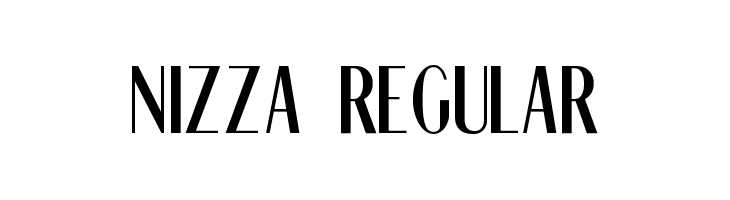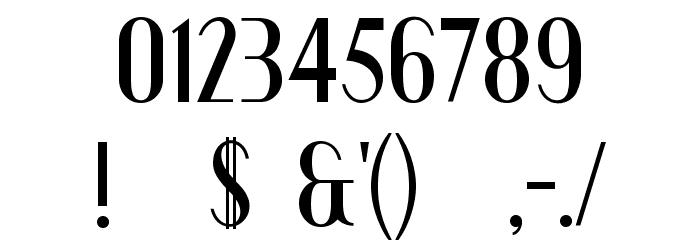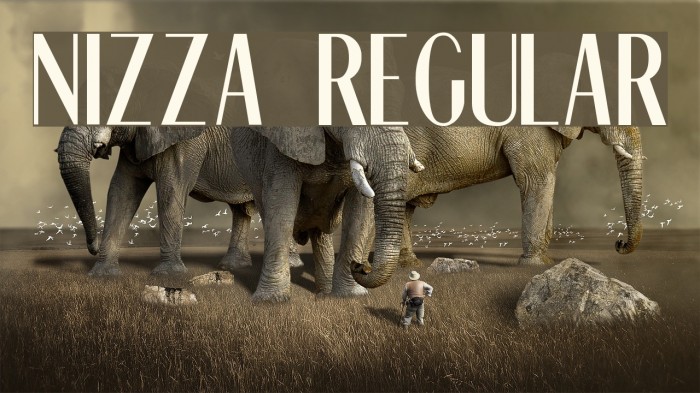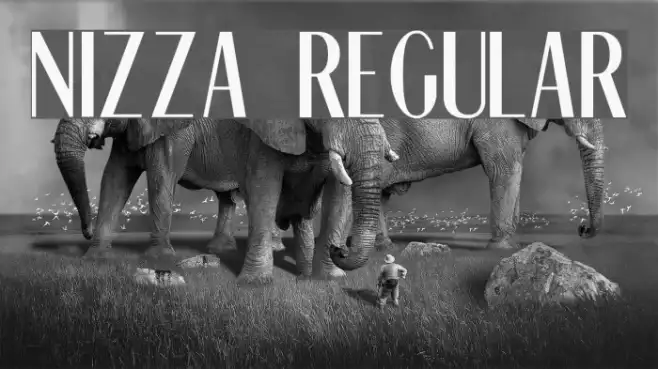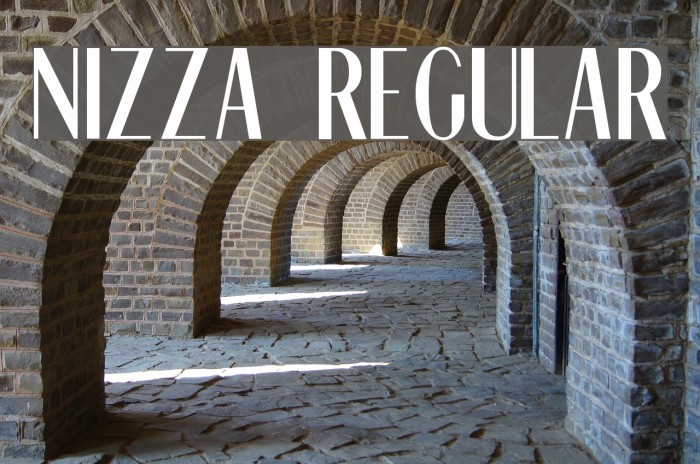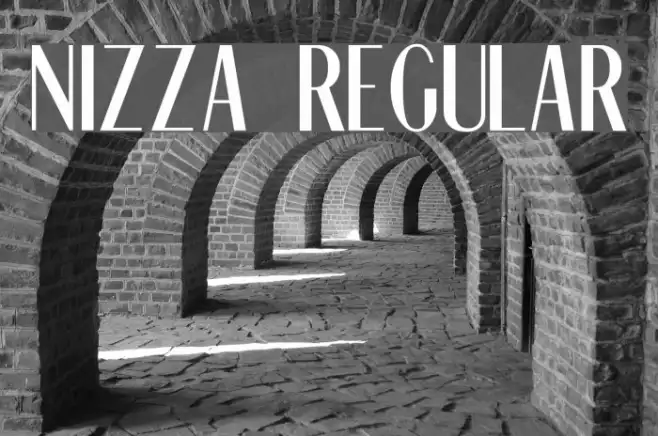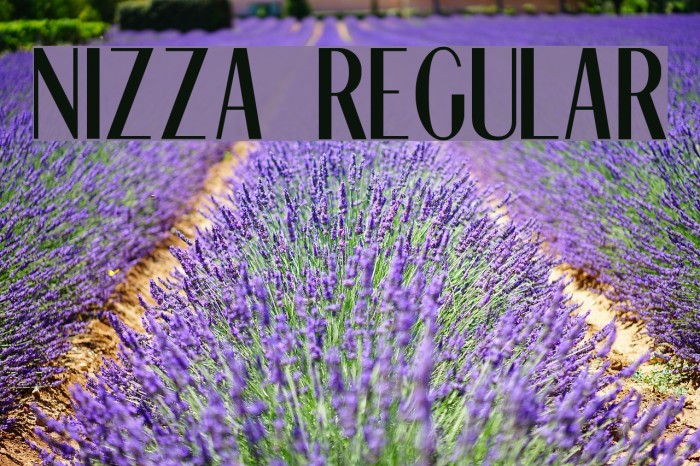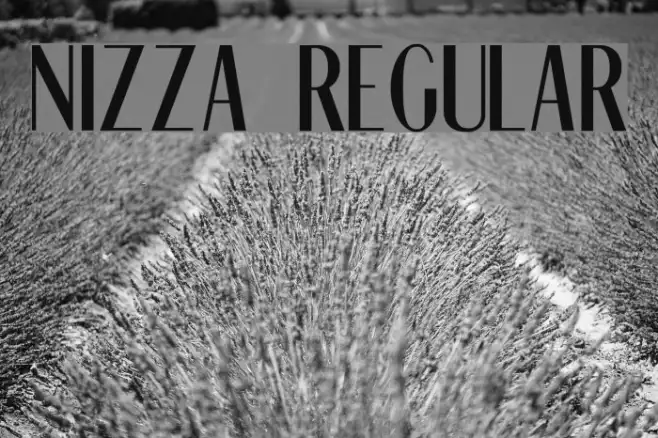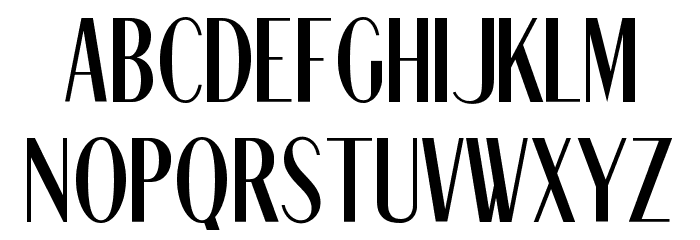
Nizza Regular Font
This font features a modern and elegant design with a high contrast between thick and thin strokes, giving it a sophisticated and stylish appearance. The uppercase letters are tall and narrow, with a slight flair at the ends of the strokes, adding a touch of elegance. The lowercase letters maintain a consistent style, with a clean and crisp look that enhances readability. The numerals are well-proportioned, matching the overall aesthetic of the font. Special characters are thoughtfully designed, maintaining the font's cohesive style. This font is versatile, suitable for both digital and print media, and can be used to create a striking visual impact.
A modern, high-contrast font with elegant, narrow characters.
• Proposed Projects: Ideal for branding, editorial design, fashion magazines, and luxury product packaging.
• Category: Modern
• Width: Condensed
• Contrast: High
• Overall Style: Modern
• Use Case: Headlines, Logos